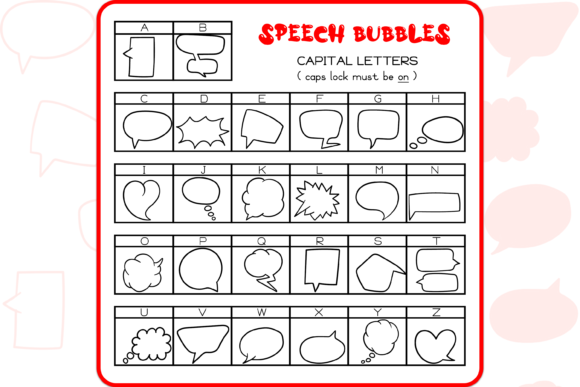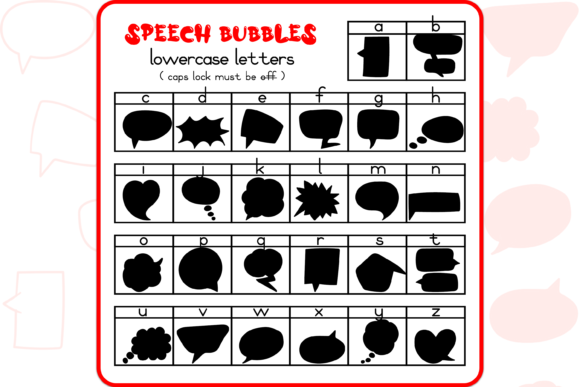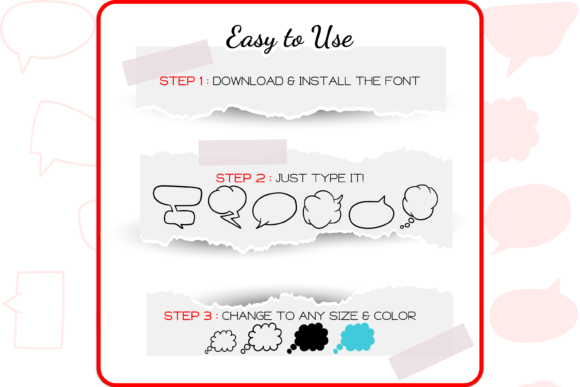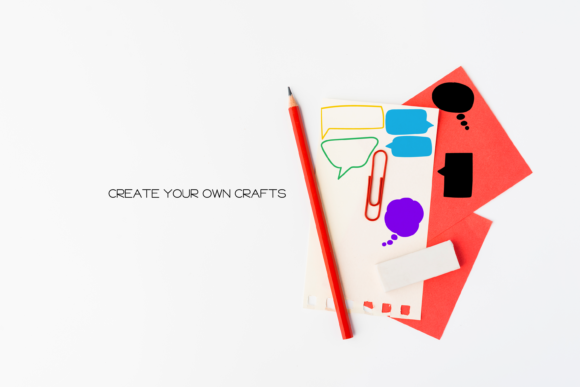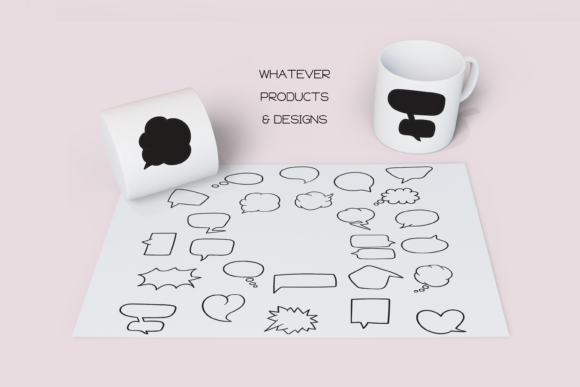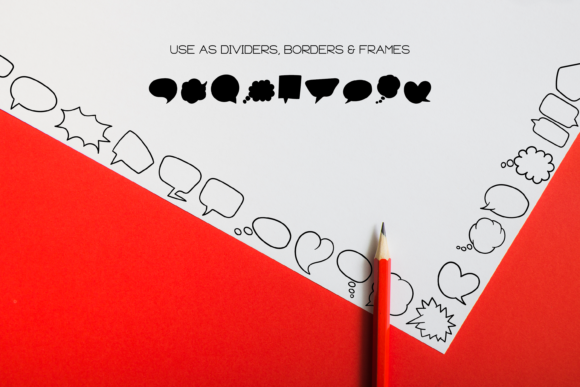
The Speech Bubbles Font
About The Speech Bubbles Font
The Speech Bubbles Dingbats font is a delightful collection of 52 hand-drawn doodles in the form of speech bubbles. This unique and cute font can add a touch of playfulness and communication to your creative ideas. Here are some ways you can use The Speech Bubbles Dingbats font to make your arts outstanding:
1. Comic Strips and Graphic Novels: If you’re creating comic strips or graphic novels, The Speech Bubbles Dingbats font can bring your characters’ dialogue to life. Use the speech bubble doodles to indicate conversations, thoughts, or sound effects. The various shapes and styles of the speech bubbles can add visual interest and enhance the storytelling aspect of your artwork.
2. Social Media Graphics: Grab attention on social media platforms by incorporating The Speech Bubbles Dingbats font into your graphics. Use the speech bubble doodles to highlight quotes, captions, or calls to action in your posts. The playful and whimsical nature of the symbols can make your content more engaging and shareable.
3. Invitations and Greeting Cards: Create unique and personalized invitations or greeting cards using The Speech Bubbles Dingbats font. Incorporate the speech bubble doodles as decorative elements or use them to frame important information. The symbols can add a touch of fun and excitement to your event announcements or heartfelt messages.
4. Presentations and Infographics: Make your presentations and infographics visually appealing and easy to follow with The Speech Bubbles Dingbats font. Use the speech bubble doodles to emphasize key points, highlight statistics, or create a visual flow between different sections. The symbols can add a touch of creativity and clarity to your informational content.
5. Website Design and User Interfaces: Incorporate The Speech Bubbles Dingbats font into your website design or user interfaces to enhance the user experience. Use the speech bubble doodles as buttons, icons, or interactive elements. The symbols can add an element of interactivity and guide users through different sections or actions on your website.
6. Scrapbooking and Journaling: Add a playful touch to your scrapbooking or journaling projects with The Speech Bubbles Dingbats font. Use the speech bubble doodles to highlight memorable quotes, document conversations, or express thoughts and emotions. The symbols can help create visually appealing layouts and add a whimsical element to your personal keepsakes.
Remember to experiment with different sizes, colors, and arrangements of the speech bubble doodles to suit your specific design needs. The versatility of The Speech Bubbles Dingbats font allows you to create unique and outstanding arts that enhance communication and storytelling.
In summary, The Speech Bubbles Dingbats font offers a collection of hand-drawn speech bubble doodles that can elevate your creative ideas. Whether you’re working on comic strips, social media graphics, invitations, presentations, website design, or personal projects, this font allows you to infuse your arts with a touch of playful communication. So let your imagination soar, and make your arts outstanding with The Speech Bubbles Dingbats font!